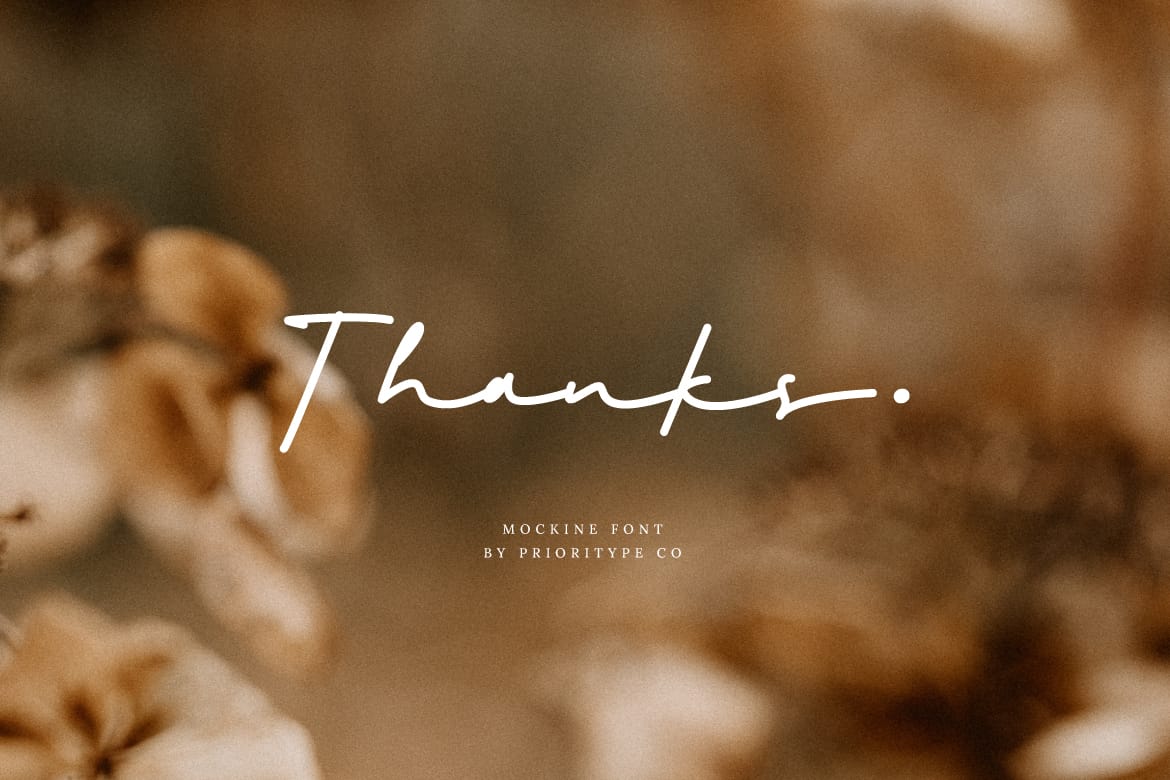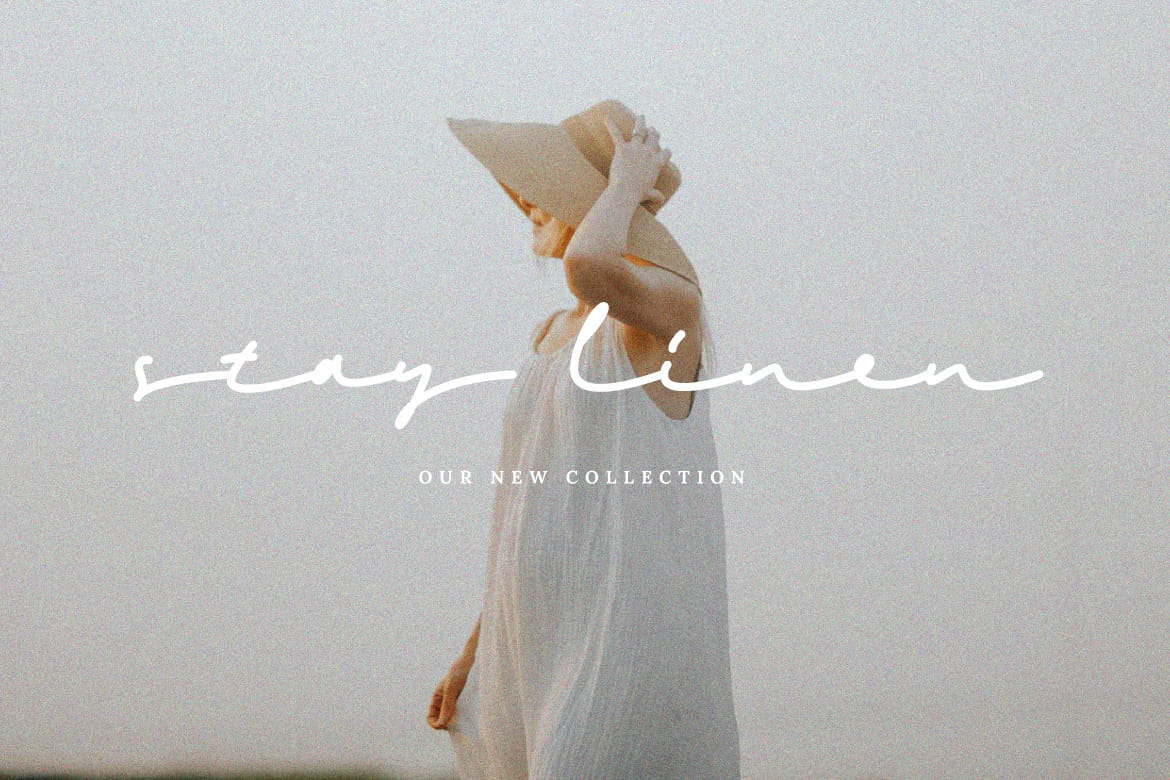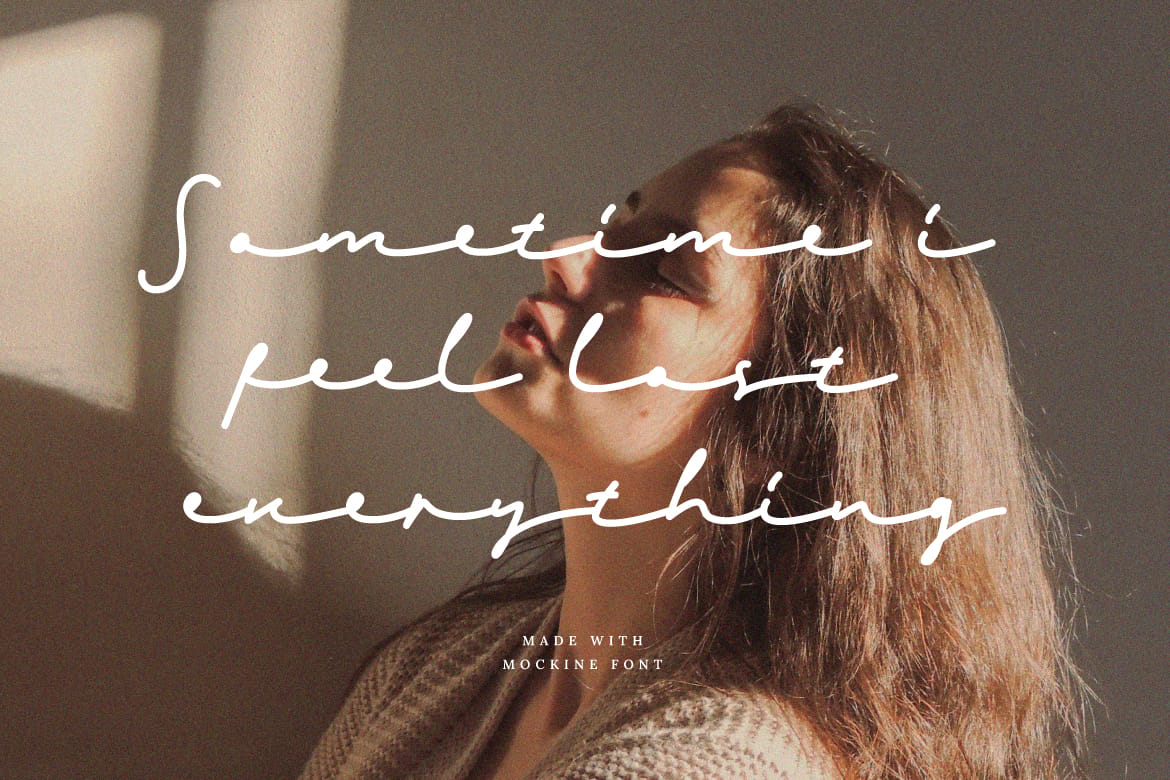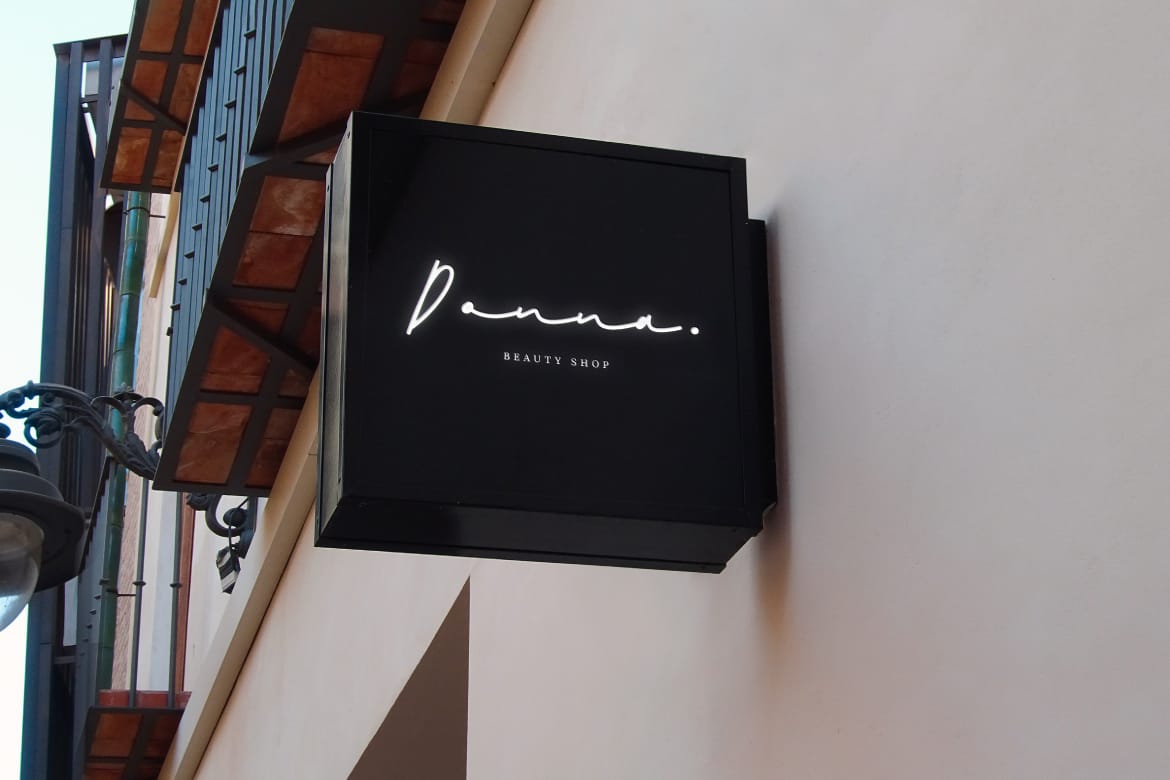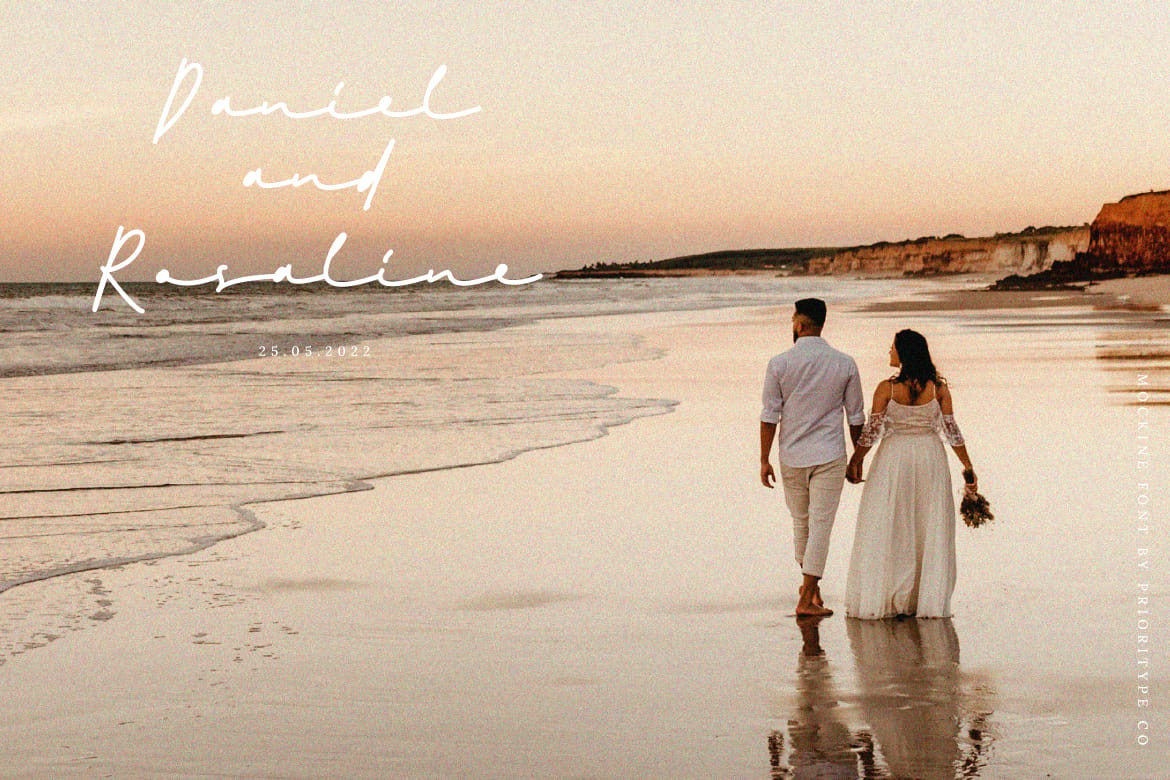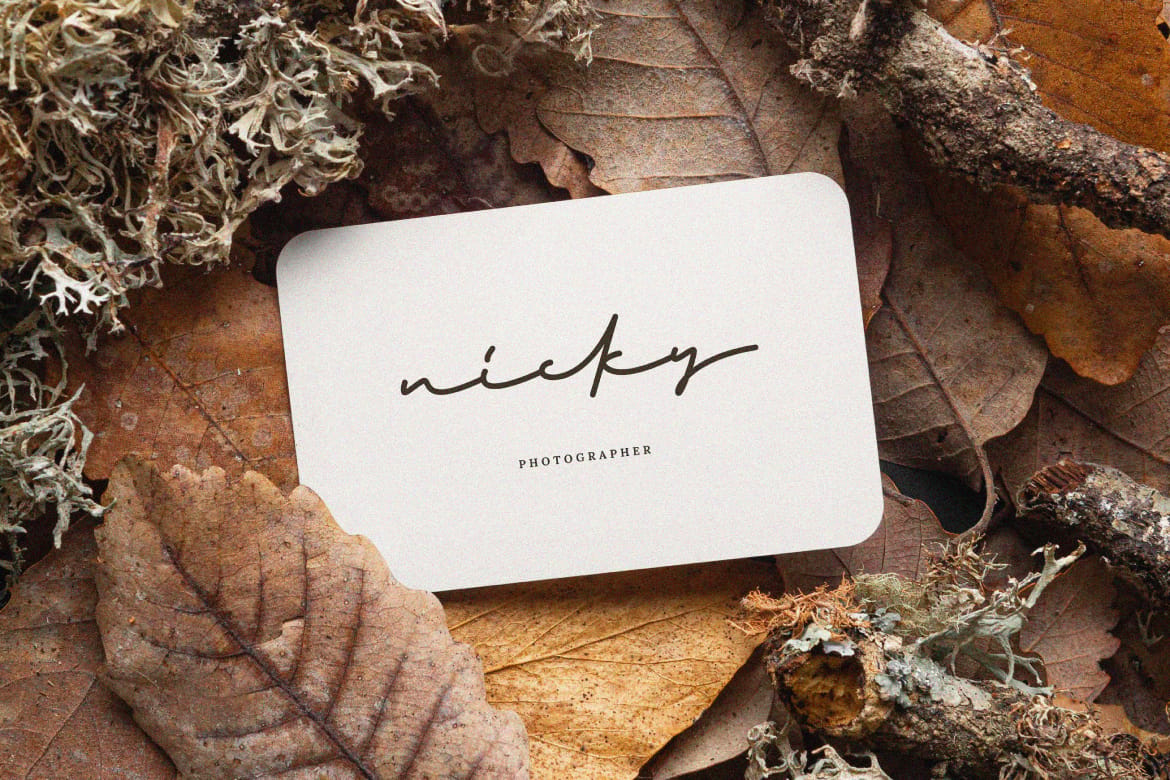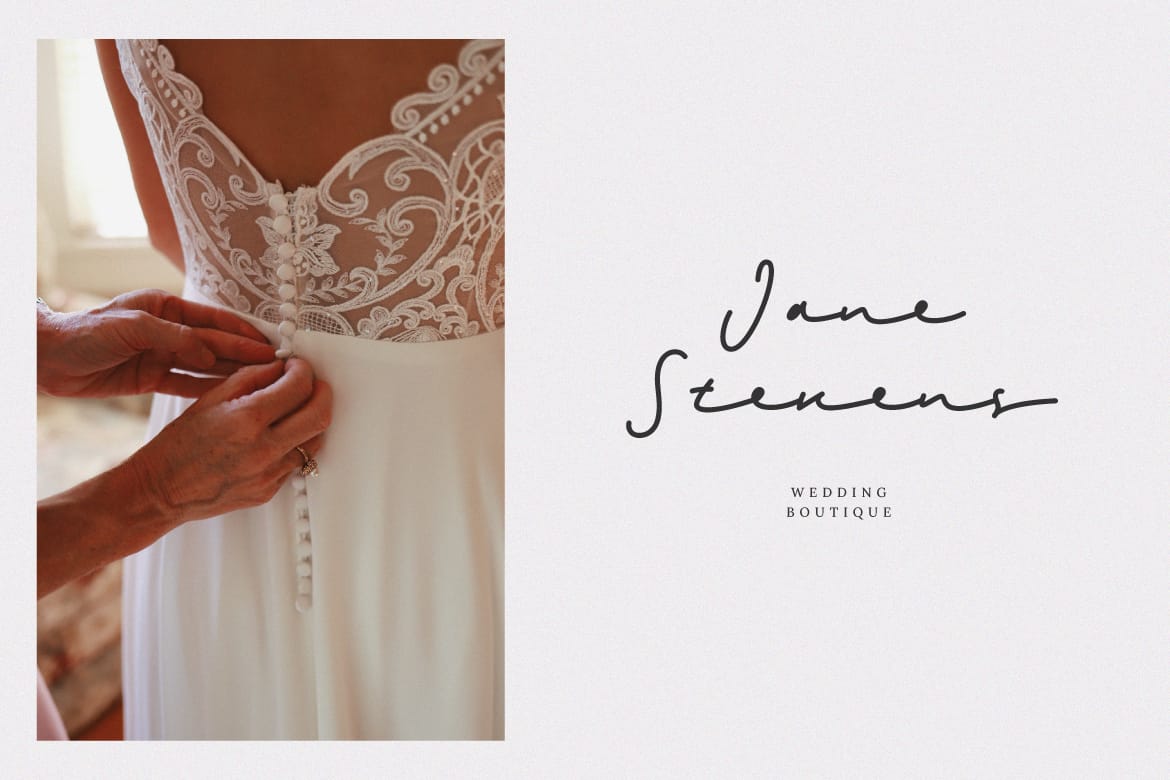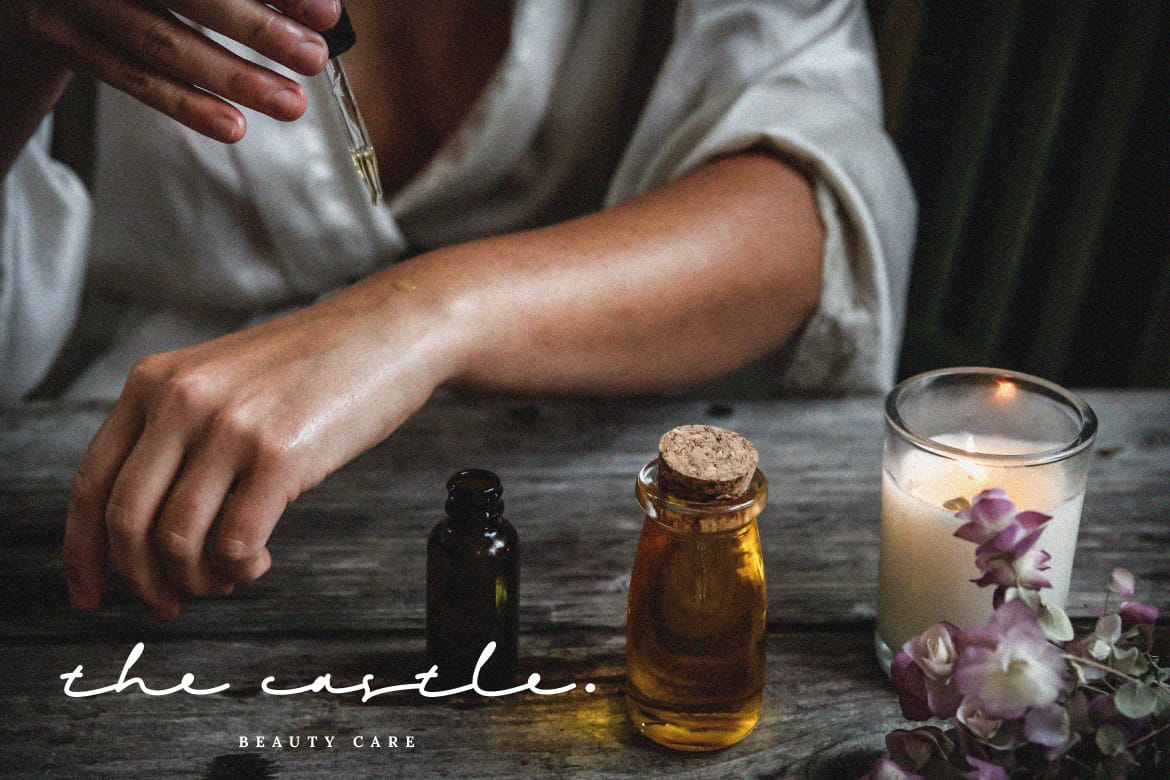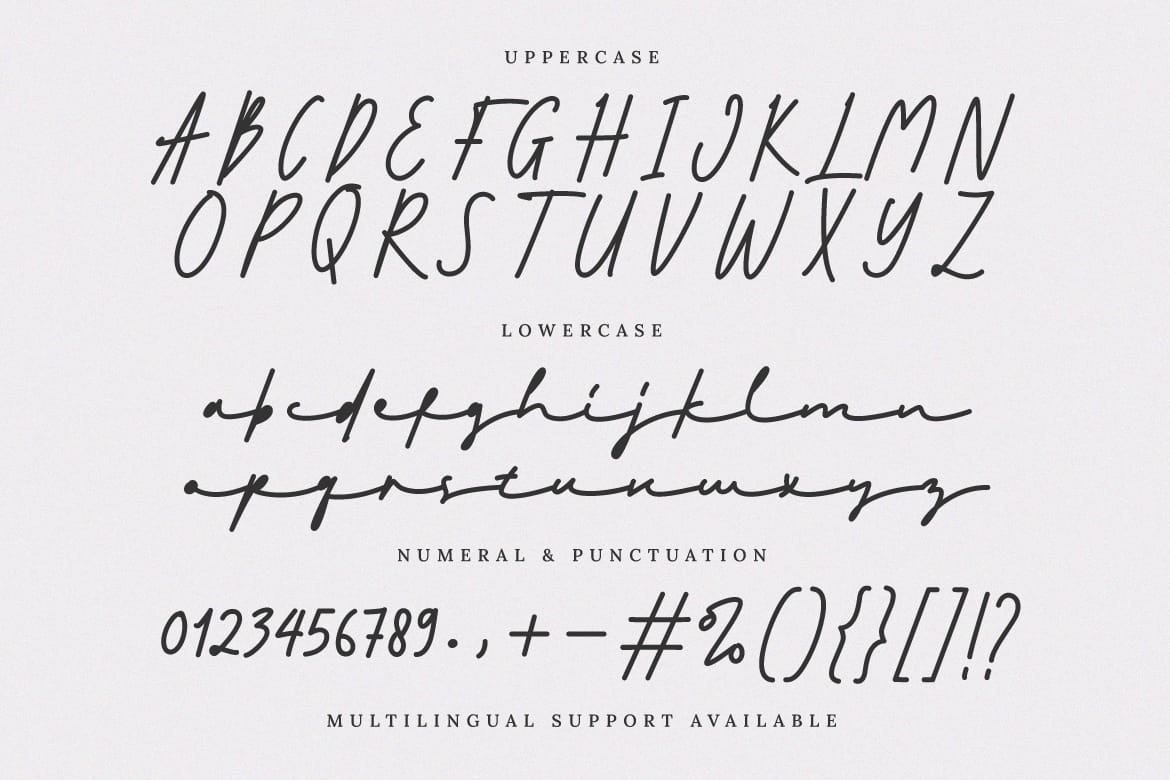
Mockine – Monoline Script Font by Prioritype Co.
Introducing a new script typeface. Who is he "Mockine". Monoline script font with natural hand strokes. It is perfect for your design projects such as logos, branding or social media posts.
Features: Uppercase, Lowercase, Numeral, Punctuation, Multilingual, Ligatures & PUA Encoded.
- Natural hand-stroke monoline script
- Ligatures and PUA encoded